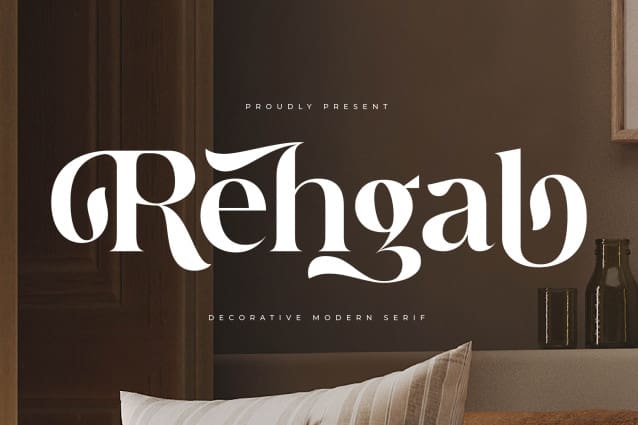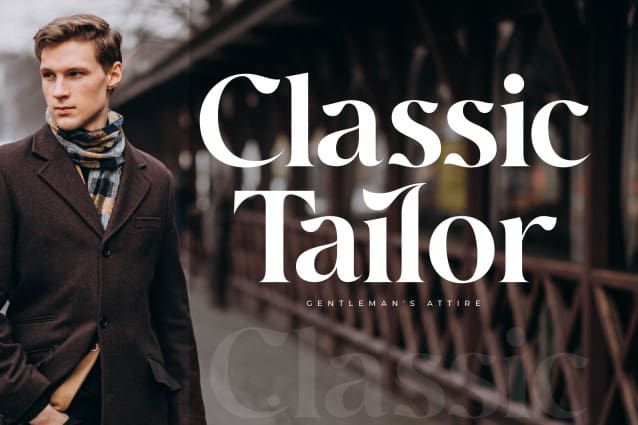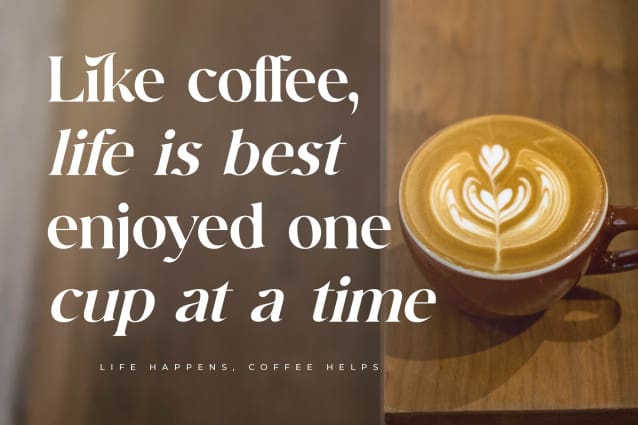
Rehgal Font
Rehgal Font – Decorative Modern Serif , from Letterena, is a Luxury Serif font, suitable for any projects such as: logos, branding projects, homeware designs, product packaging, mugs, quotes, posters, shopping bags, t-shirts, book covers, name card, invitation cards, greeting cards, label, photography, watermark, special events, and all your other luxury and beautiful projects that need a Luxury Serif taste.